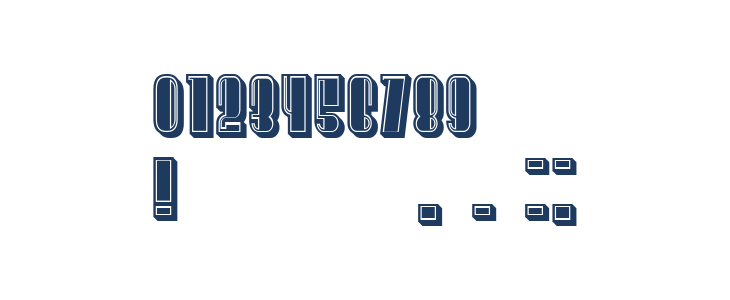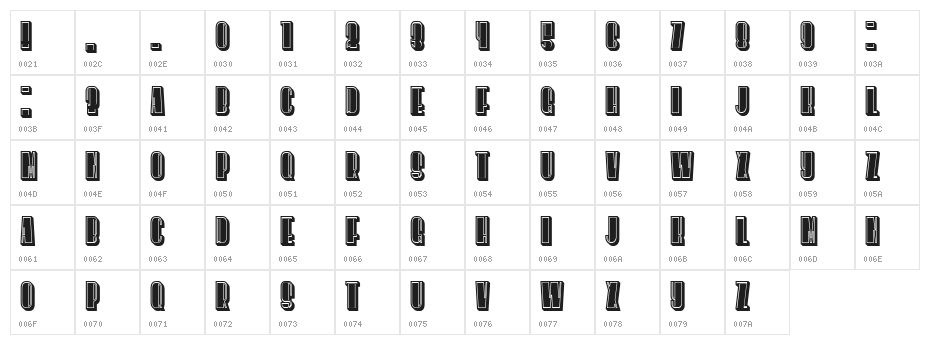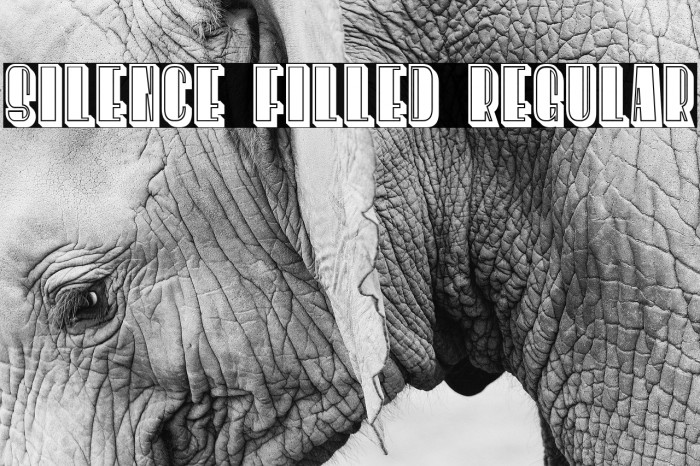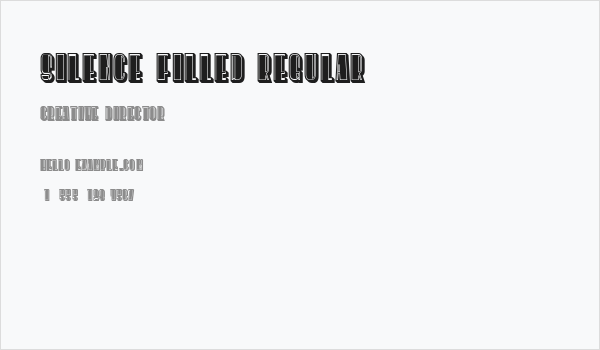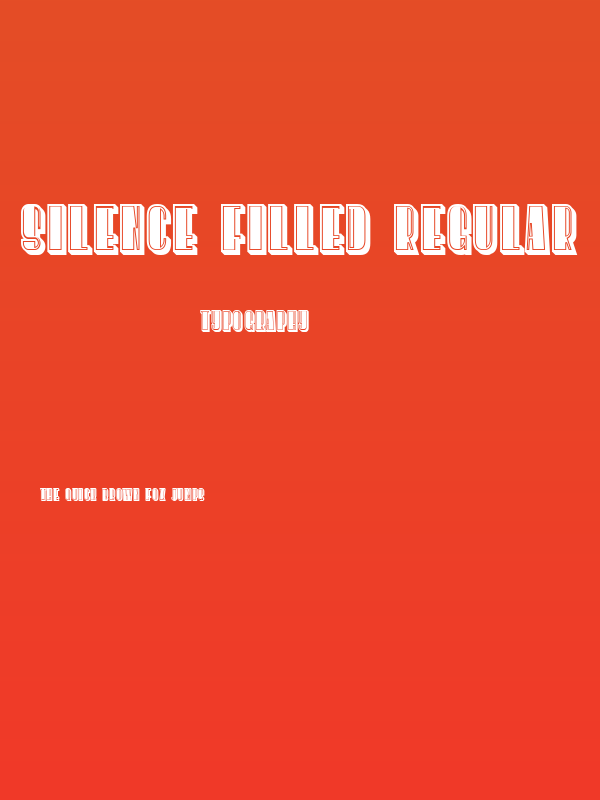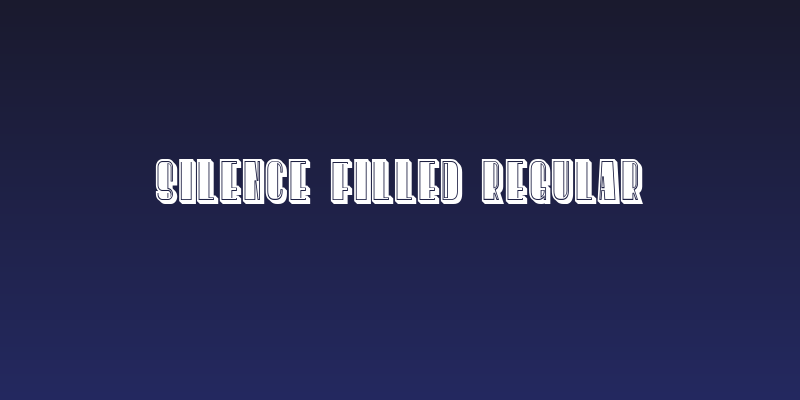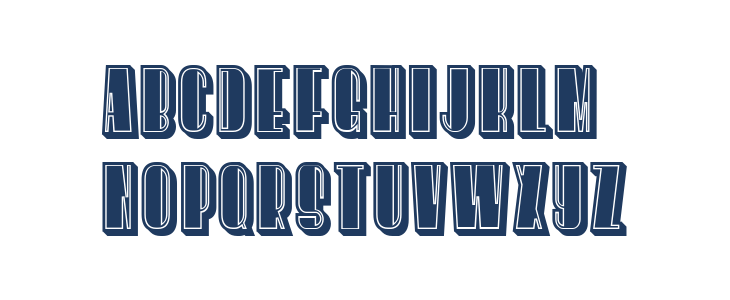
Silence Filled Regular Font
Silence Filled Regular Description
This font features a bold and striking design with a strong outline that creates a three-dimensional effect. The characters are uppercase and have a blocky, geometric style with sharp angles and clean lines. The interior of each letter is filled, enhancing the boldness and making it highly visible from a distance. This font is ideal for making a statement and grabbing attention, suitable for various creative projects. The numbers and special characters maintain the same bold and outlined style, ensuring consistency across all elements.
| Proposed Projects | Ideal for posters, headlines, logos, and any design requiring a strong visual impact. |